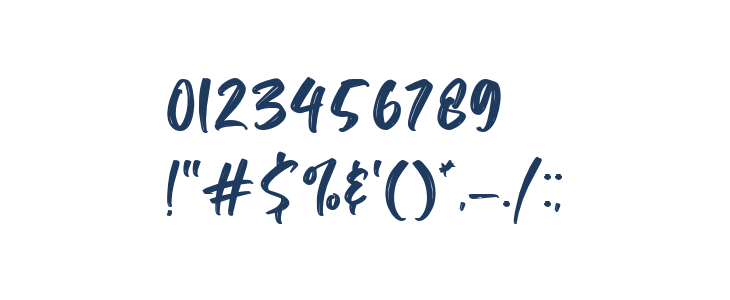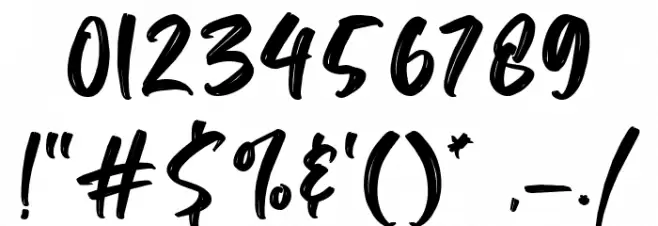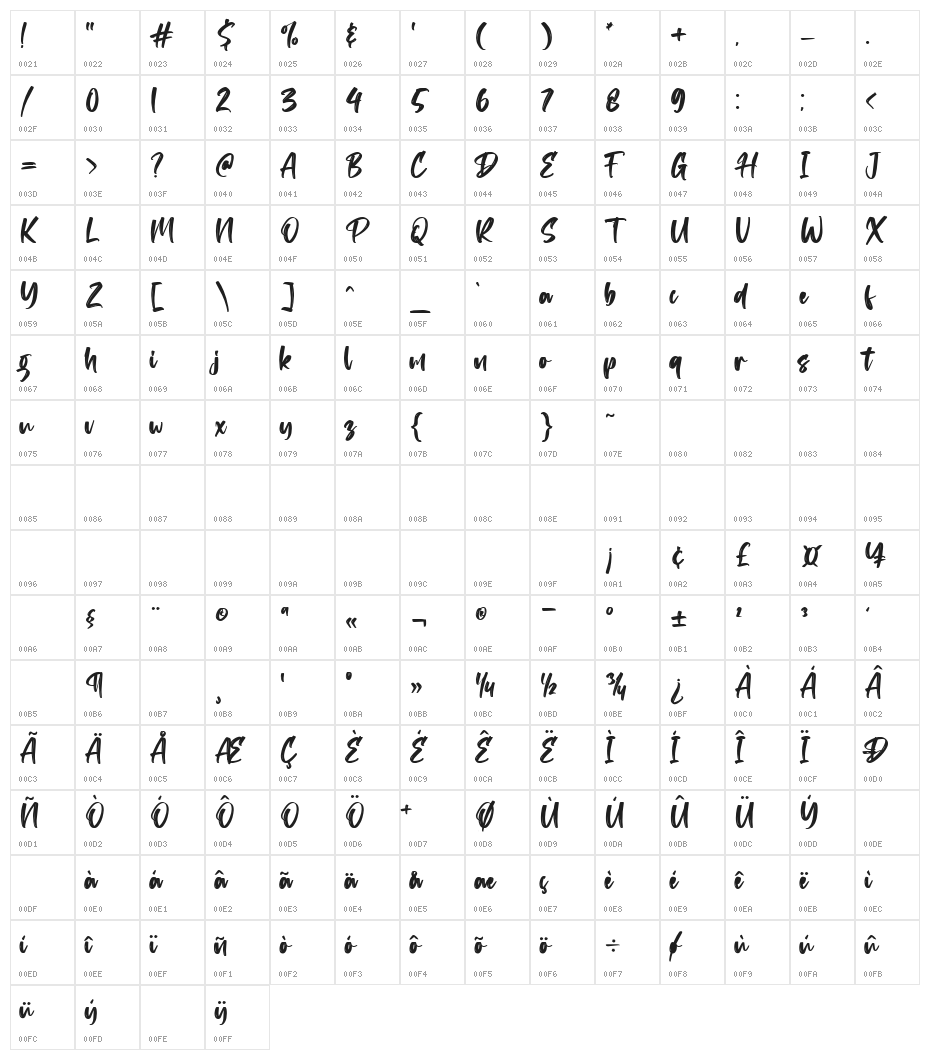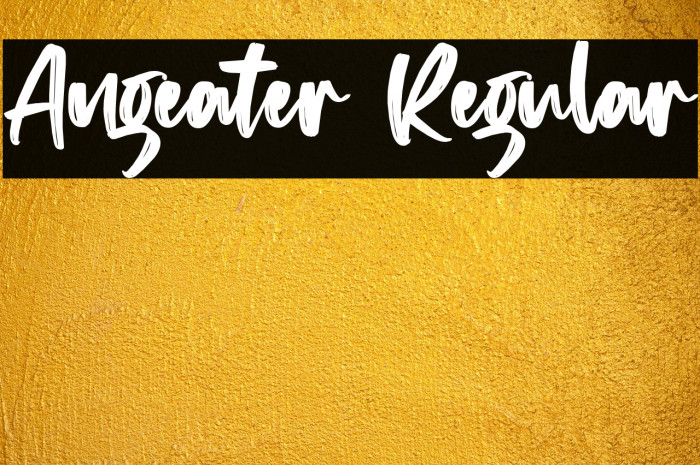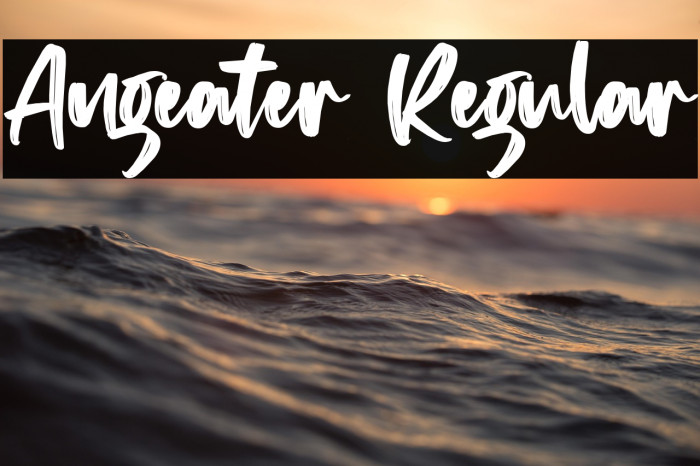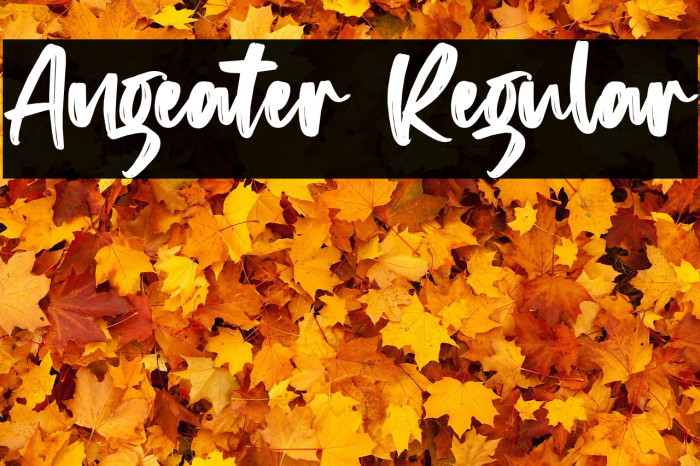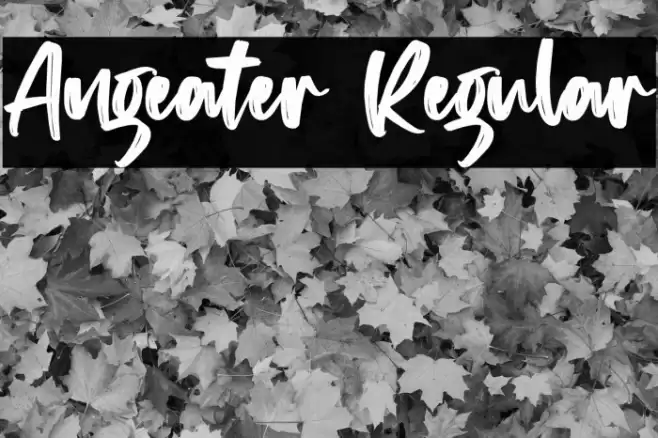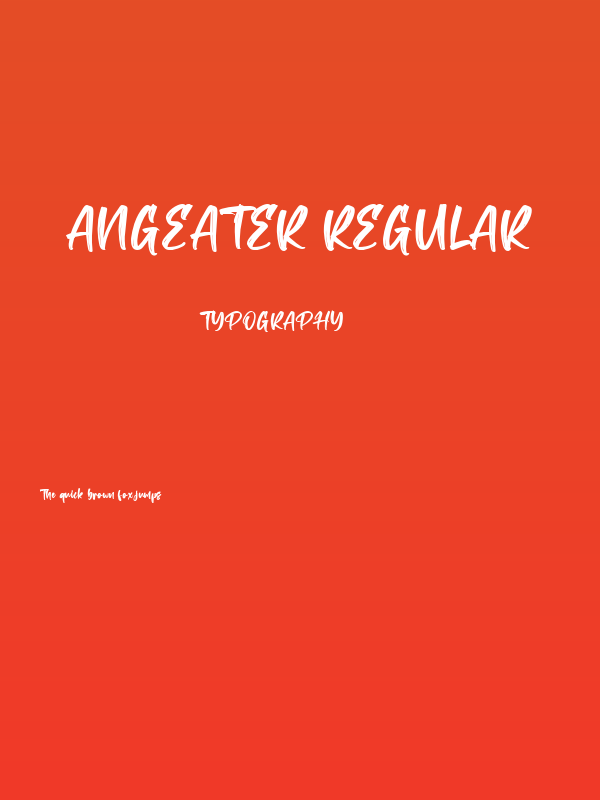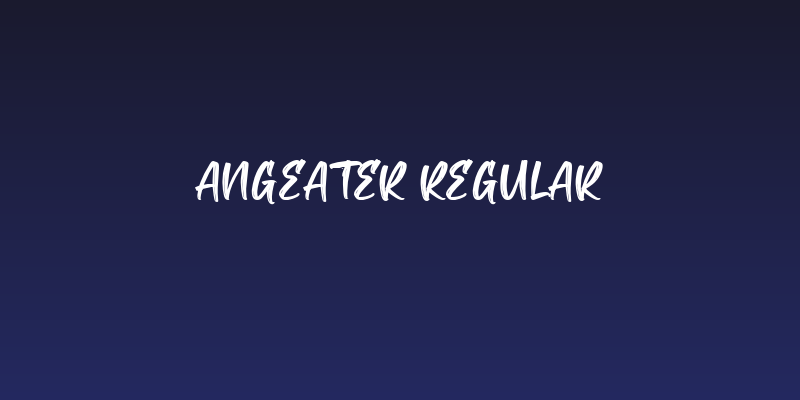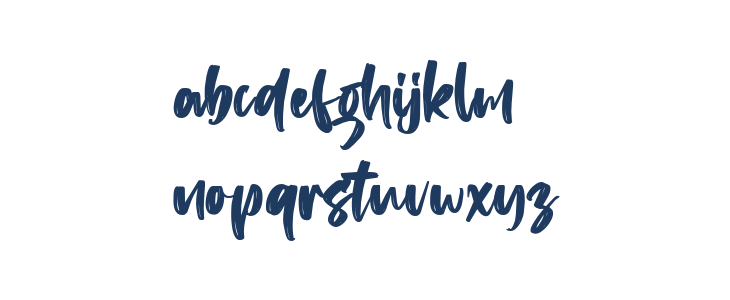
Angeater Regular Font
Angeater Regular Description
This font features a bold, handwritten style with a dynamic and energetic appearance. The strokes are thick and expressive, giving it a lively and spontaneous feel. Each character is crafted with a sense of movement, resembling brush strokes that vary in thickness, adding to its artistic flair. The uppercase and lowercase letters maintain a consistent style, while the numbers and special characters are equally bold and expressive. This font is ideal for projects that require a personal touch or a creative, informal vibe.